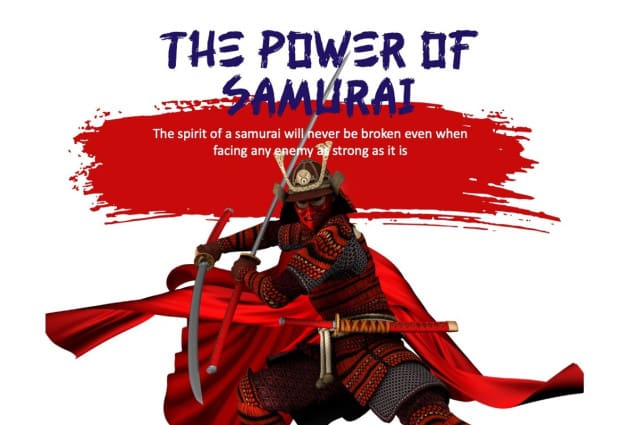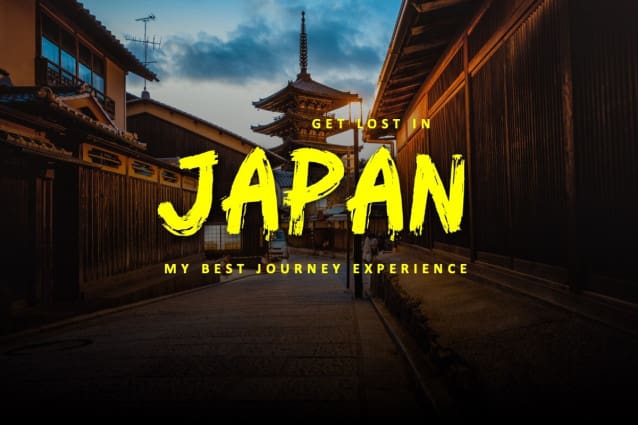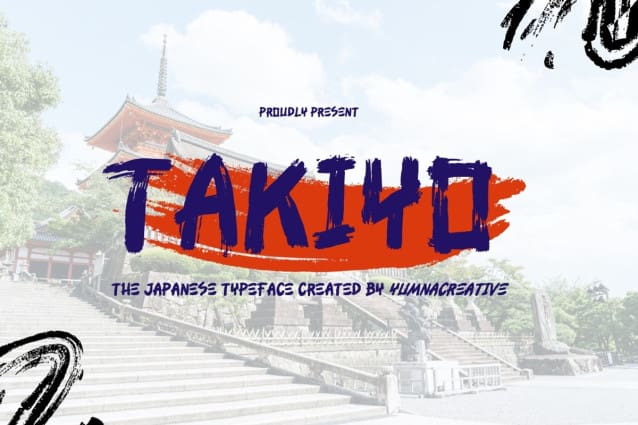
Takiyo Brush Font
Takiyo Brush Font is an inspired natural Japanese brush font that was created handmade with excellent quality. Each stroke shows natural and cultural elements in each of the glyphs.
This font is suitable for those who like Japanese style design, besides this font is also suitable for those of you who have a Japanese restaurant, Japanese clothing brand, Japanese arts, and business purpose related to Japanese culture.